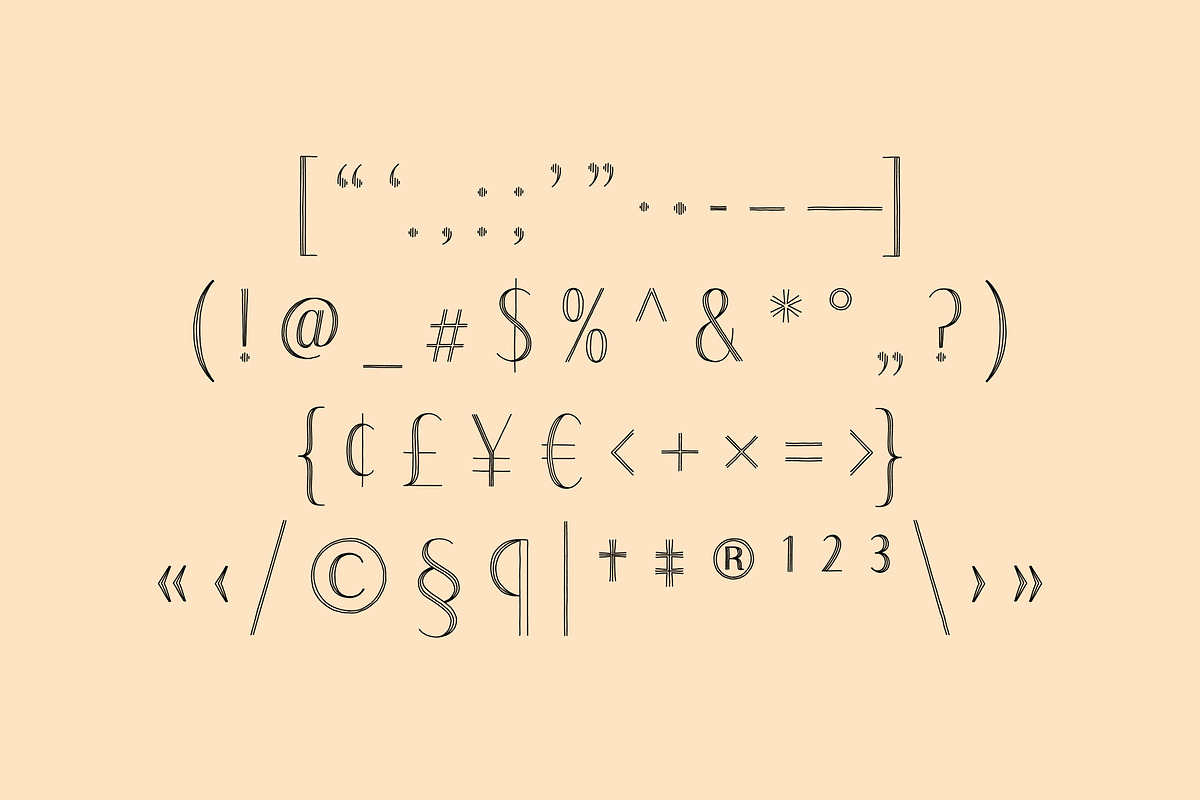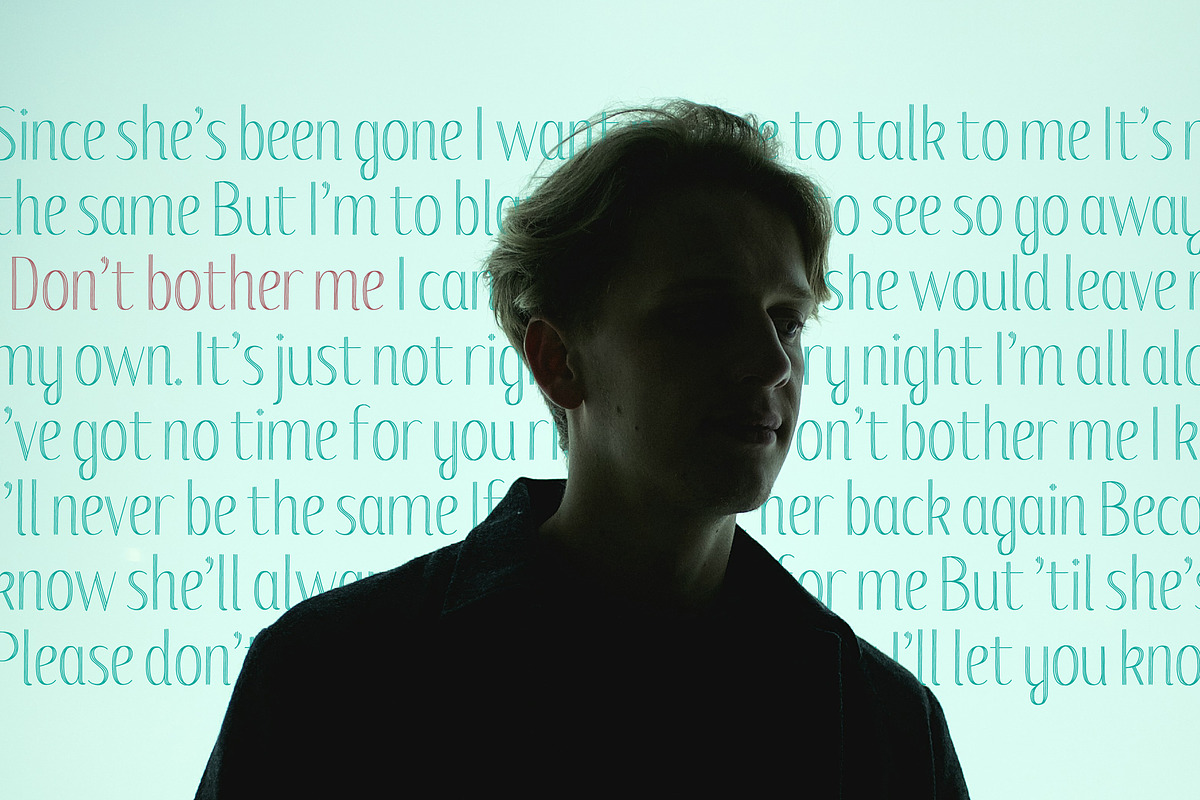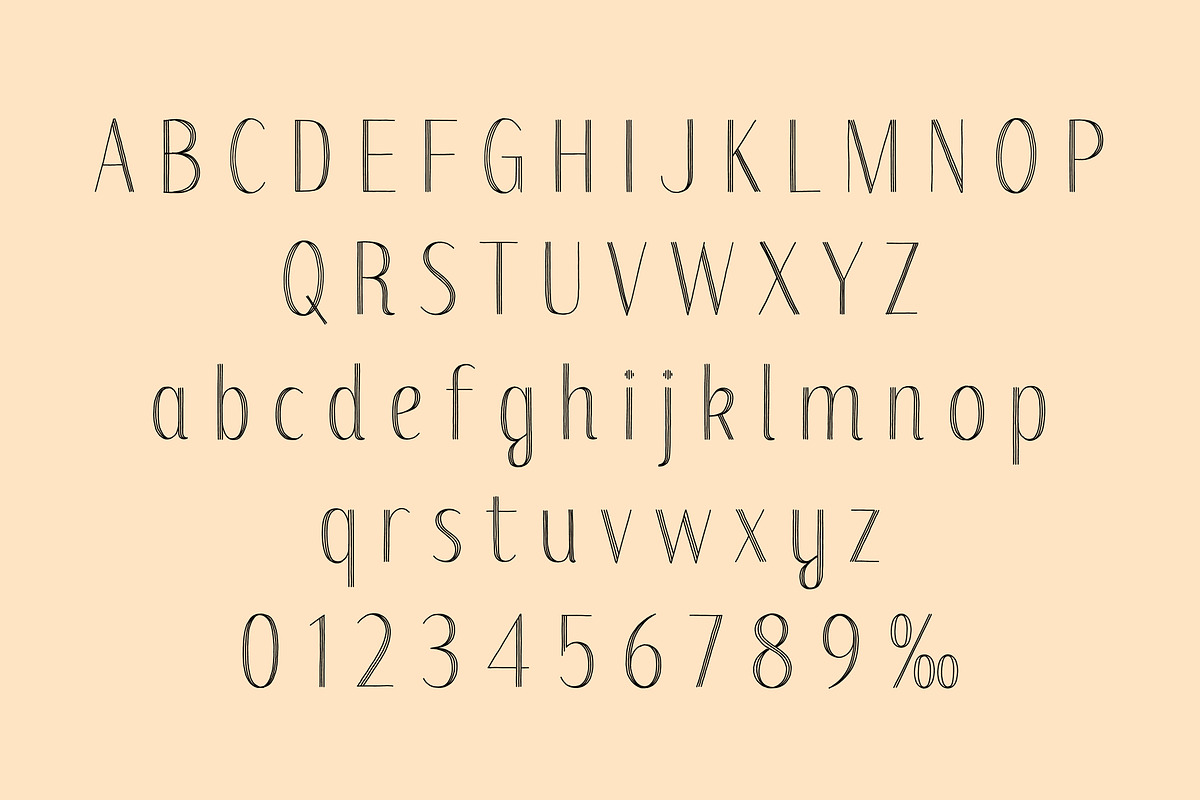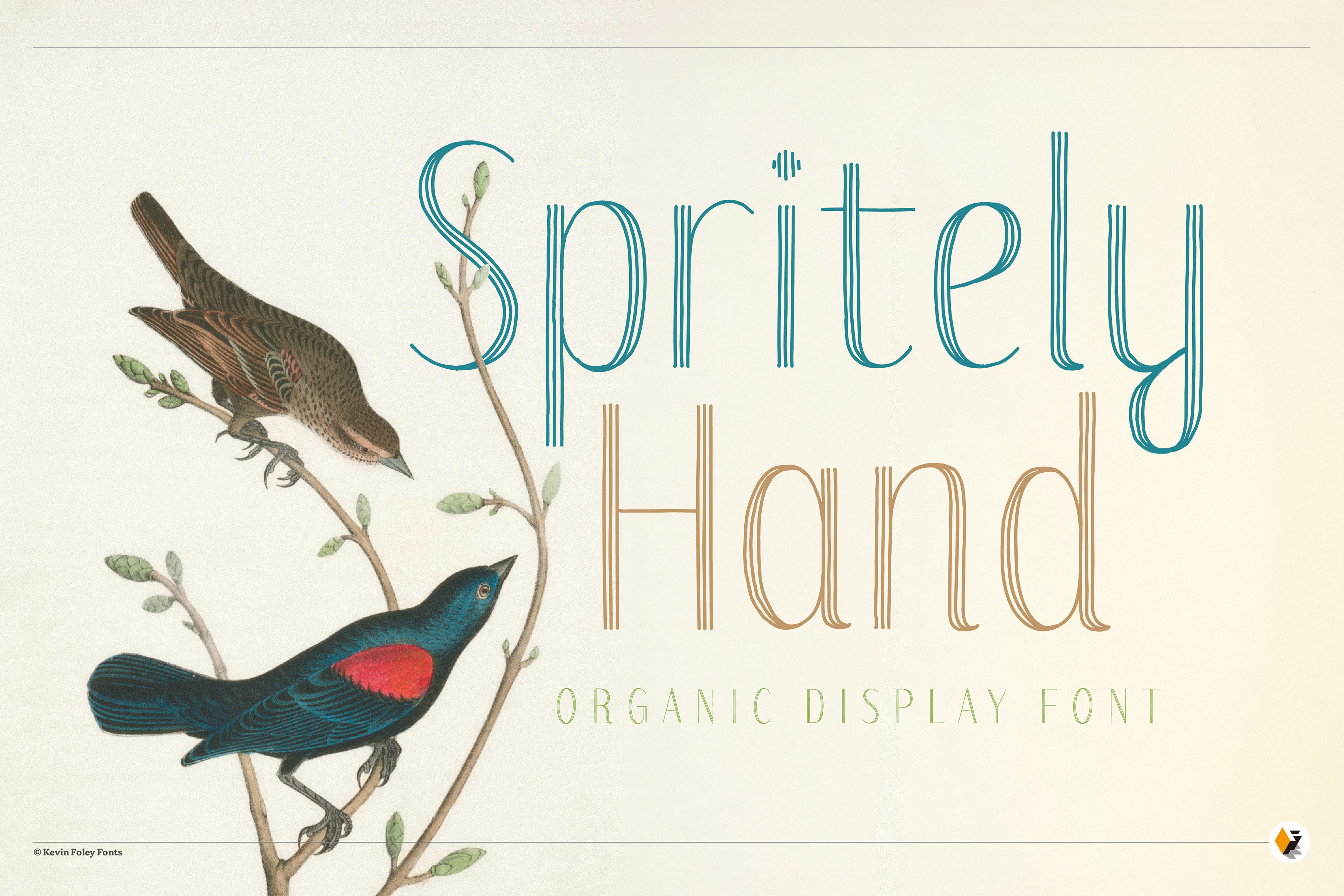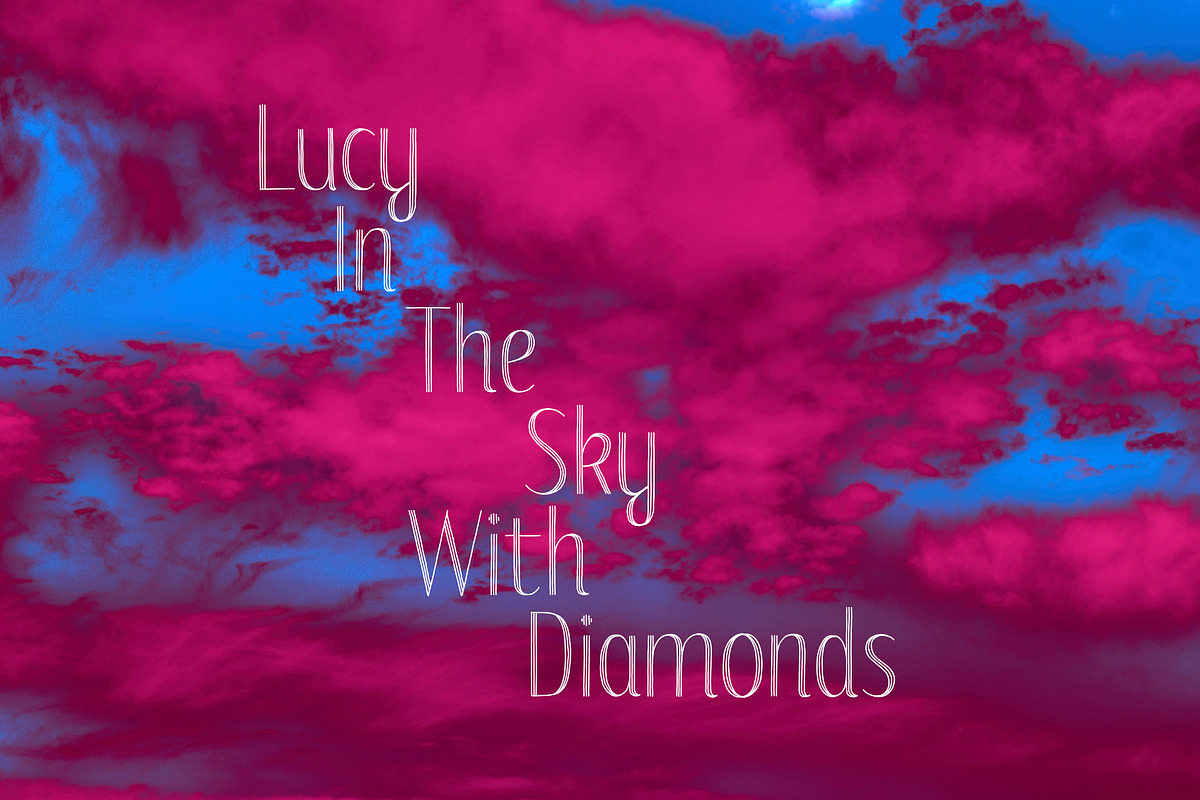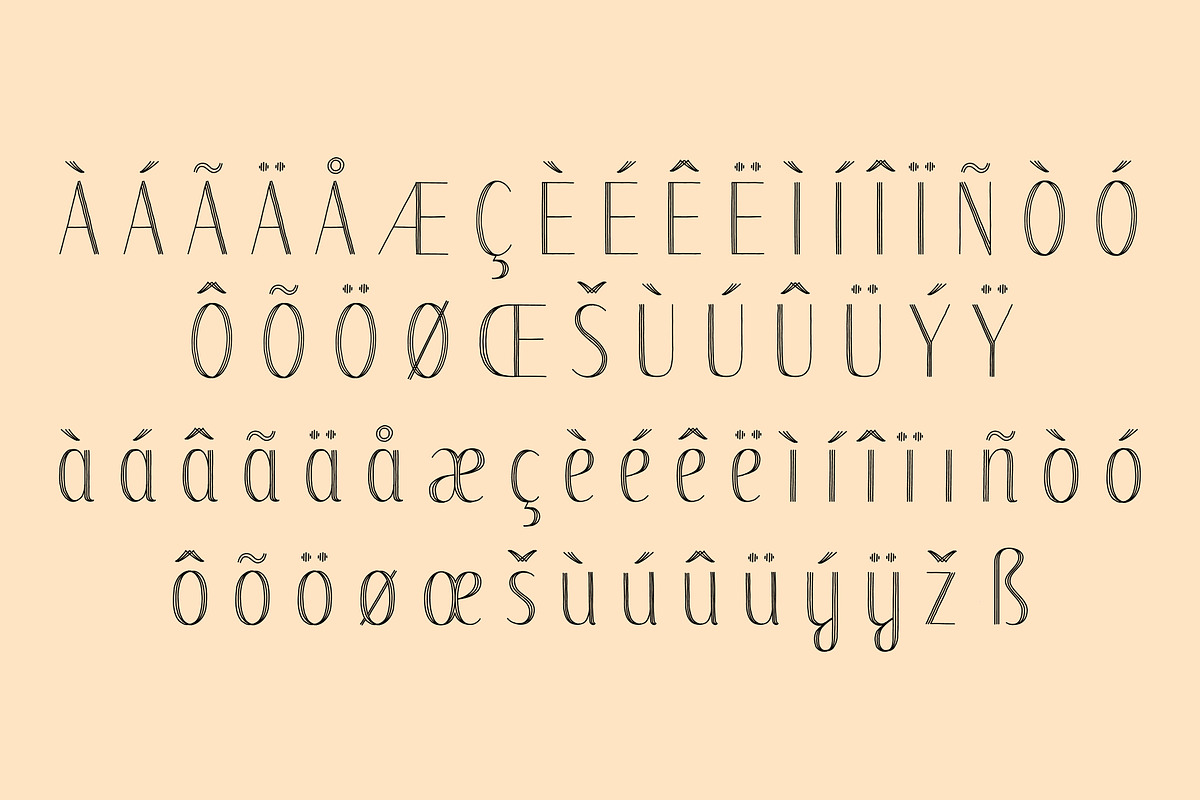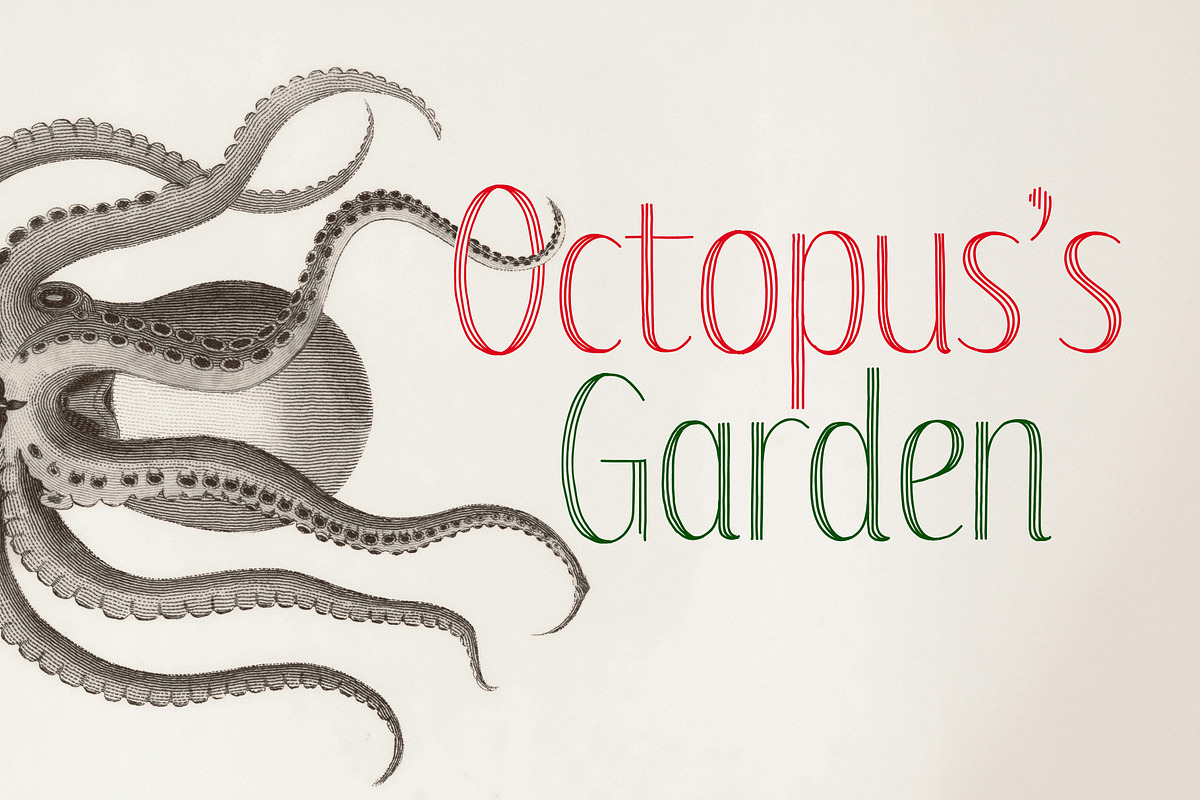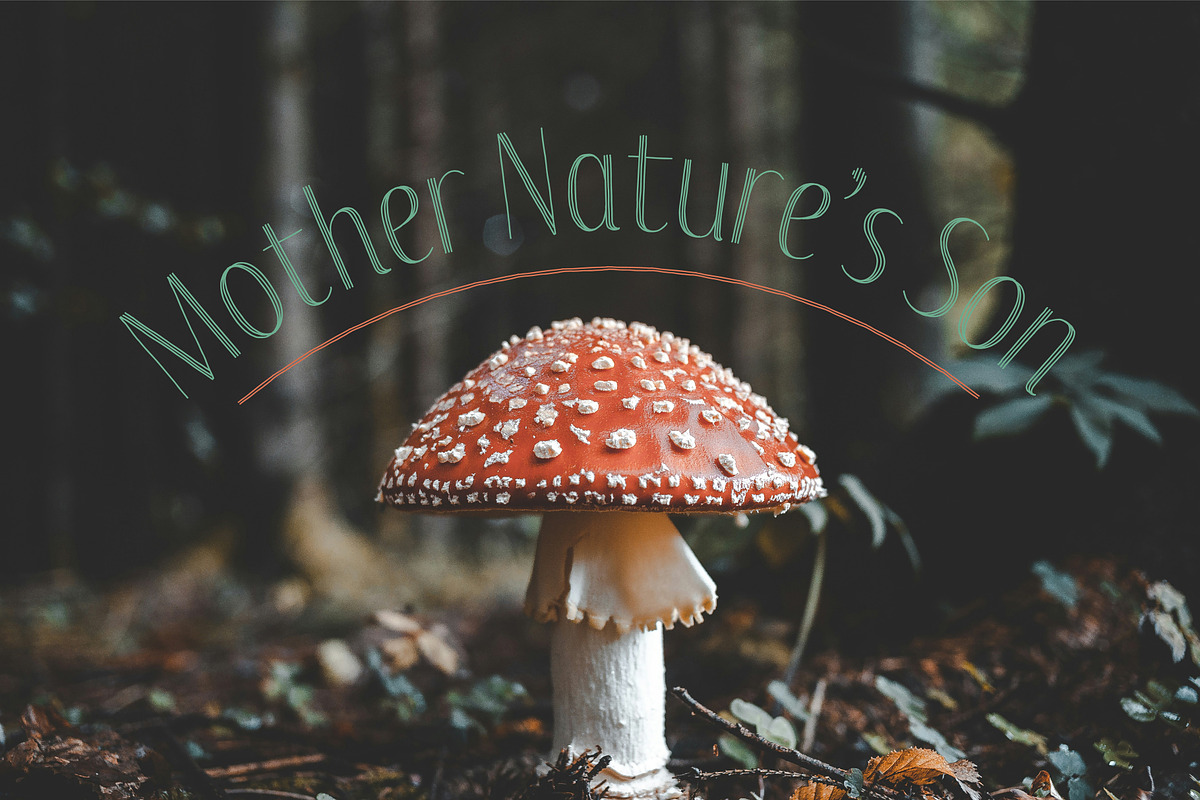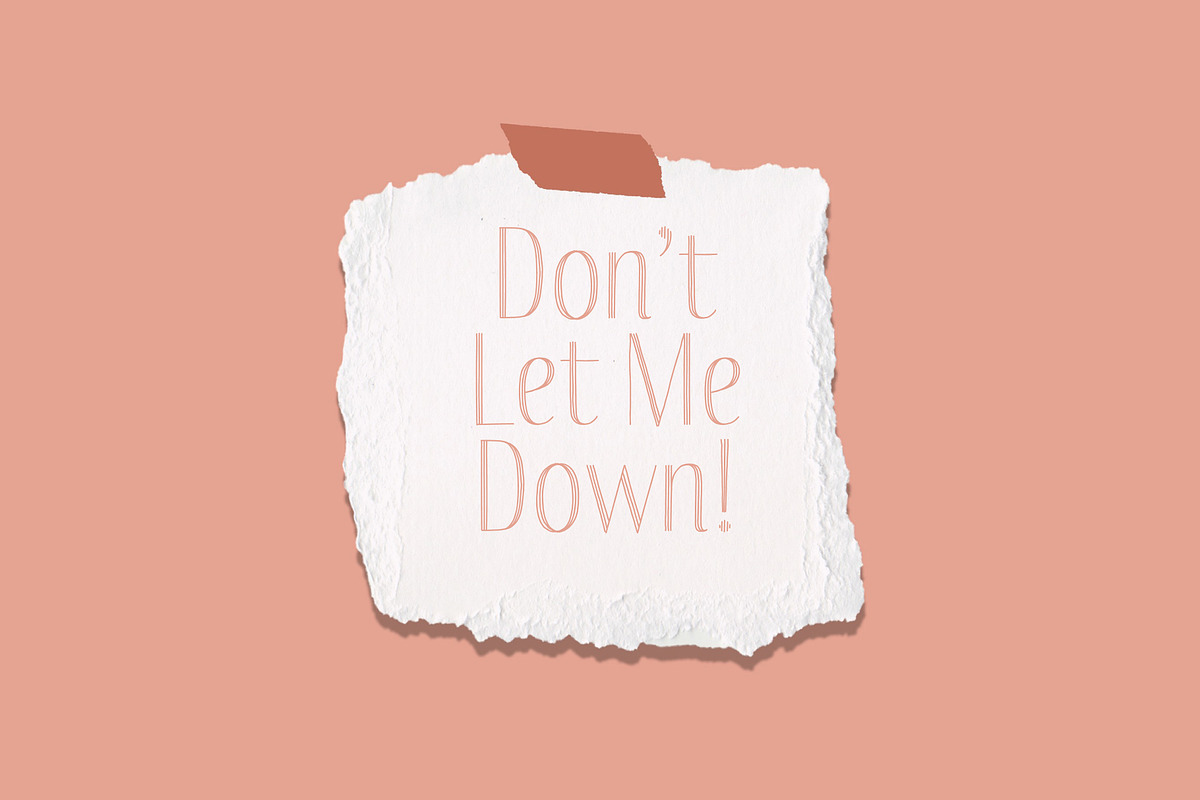
Spritely Hand — Organic Display Font
Spritely Hand
Elegant shapes with a human touch
Spritely Hand is a condensed, hand-drawn display font with distinctive cursive-like terminals and looped glyphs. The elegant shapes feel warm and organic—sophisticated but never stiff.
Perfect for creatives who want sophistication without the stiffness.
What makes Spritely Hand special:
- Organic but polished - Hand-drawn quality keeps everything feeling warm and human
- Condensed efficiency - Get impact without taking up too much space
- Approachable elegance - That "made with care" look for thoughtful projects
- One versatile weight that works for headlines, logos, and display text
- Full character set with international support
- Clean outlines that work beautifully in both print and digital projects